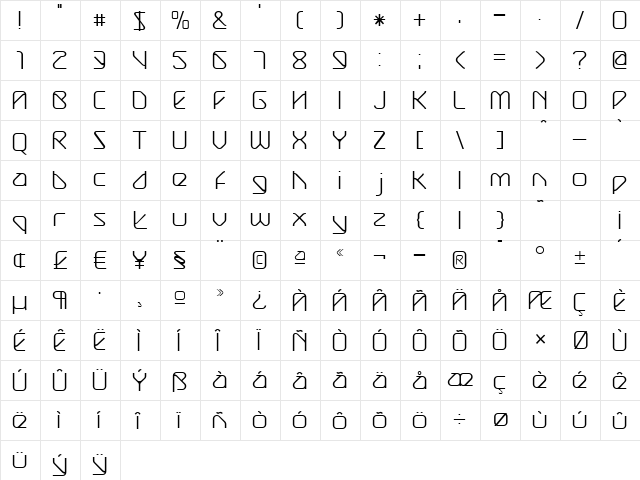
Exhaust Light
Design Context for Exhaust Typeface
Exhaust is a composed and adaptable typeface that performs quietly and consistently across a wide range of design contexts. The delicate stroke weight brings airiness and refinement to layouts.